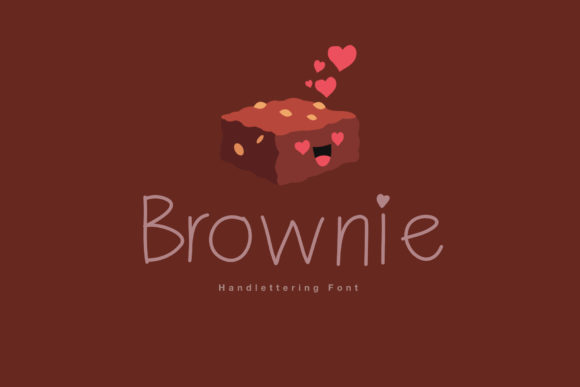
The Sweet Spot: Discovering the Brownie Font
I’ll never forget the time I was working on a project for a client who wanted a playful, yet elegant font to match their brand’s personality. I had spent hours scouring the internet for the perfect match, but nothing seemed quite right. That was until I stumbled upon the Brownie font. Its sweet and friendly handwritten style instantly caught my eye, and I knew I had found what I was looking for. In this article, I’ll share my experience with the Brownie font, its unique features, and how to make the most of it in your designs.
A Personal Review: What I Love About Brownie
The Brownie font has quickly become one of my go-to fonts for a variety of design projects. Here’s what I love about it:
- ✨ Natural and unique style: The Brownie font has a distinct handwritten feel that sets it apart from other fonts.
- ✅ Versatility: It can be used for a wide range of designs, from invitations and greeting cards to branding and packaging.
- 🎨 Creativity unleashed: The only limit is your imagination! The Brownie font is perfect for designers, crafters, and creative hobbyists who want to add a personal touch to their work.
While the Brownie font is an excellent choice for many projects, there are a few things to keep in mind:
- ⚠️ Legibility at small sizes: Like many handwritten fonts, Brownie can be a bit tricky to read at very small sizes. Make sure to test it at different sizes to ensure it’s legible for your specific project.
- 🤔 Overuse of swashes: While the Brownie font has some beautiful swashes and stylistic alternates, be careful not to overuse them. A little goes a long way in adding visual interest to your design.
The Designer Inspiration Behind Brownie
The Brownie font was inspired by the classic handwritten fonts of the past, with a modern twist. Its creator wanted to craft a font that was both elegant and approachable, perfect for designers who want to add a personal touch to their work. While the actual story behind the font’s creation may be unknown, it’s clear that the designer had a passion for typography and a desire to create something unique and special.
| Font Name | Brownie Font |
| Author | Brown Cupple Design |
| What type of designs is the Brownie font best suited for? | The Brownie font is versatile and can be used for a wide range of designs, including invitations, greeting cards, branding, and packaging. |
| Is the Brownie font suitable for body text? | While the Brownie font is beautiful, it’s best used as a display font or for short blocks of text. It’s not recommended for long-form body text. |